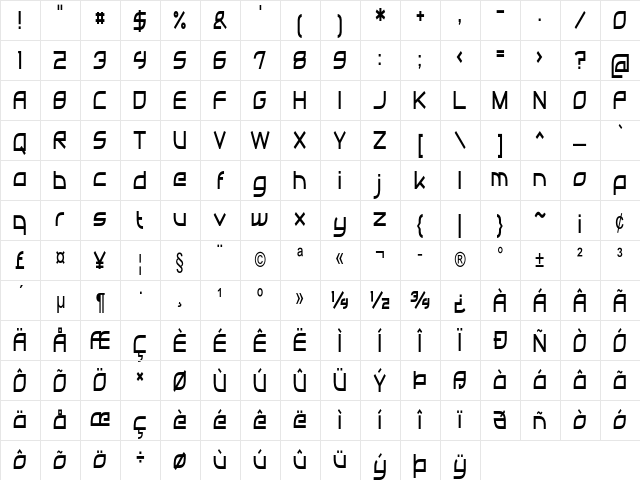
Space Odyssey Condensed Regular Free Font
Space Odyssey Condensed Regular
Style: Condensed Regular
Space Odyssey Family
Space Odyssey Condensed Regular
Design Context for Space Odyssey
Space Odyssey is a composed and adaptable typeface that performs quietly and consistently across a wide range of design contexts. Its narrow stance lets it pack a punch even in space-constrained designs.